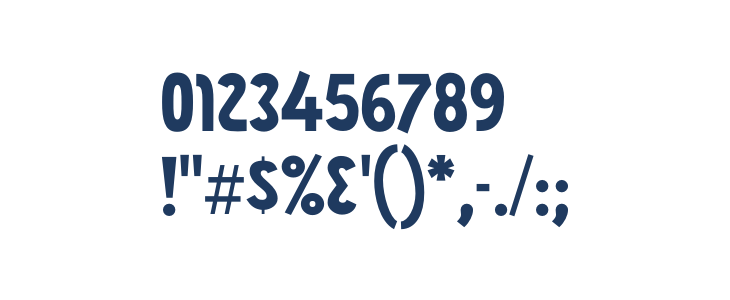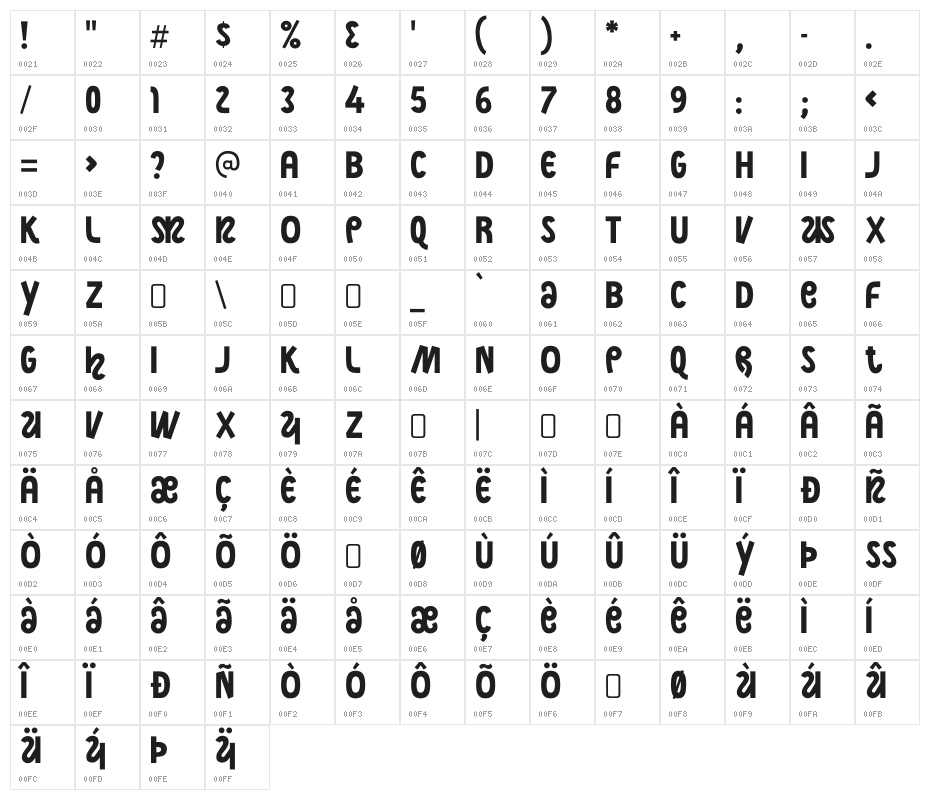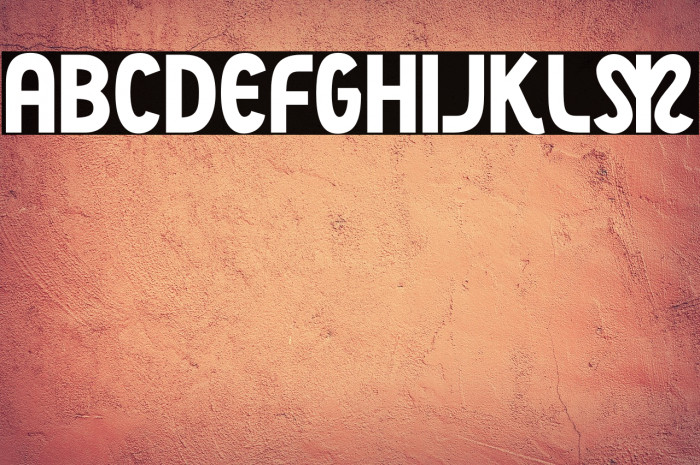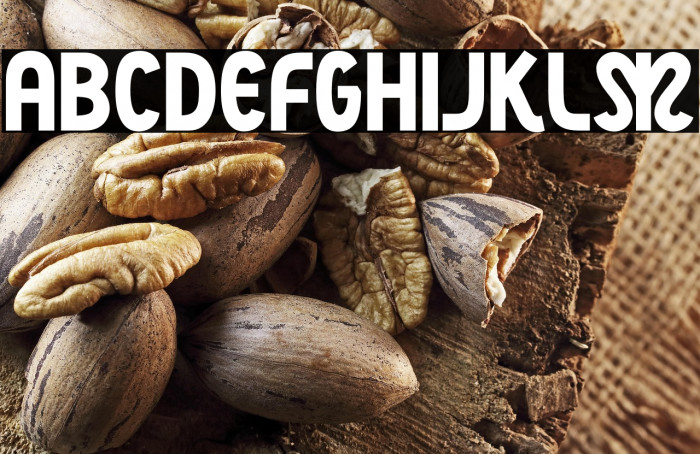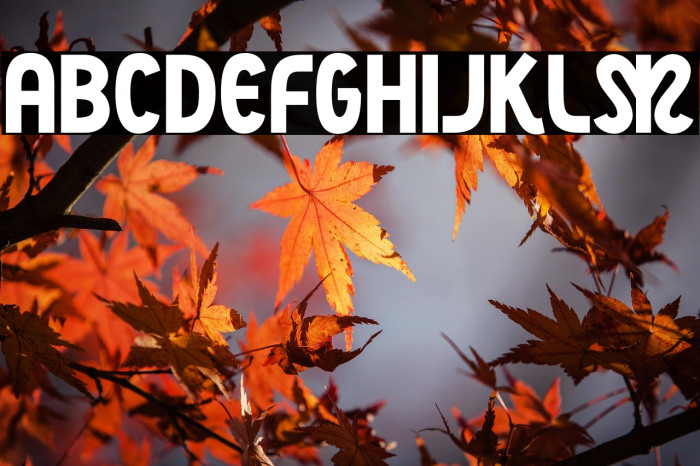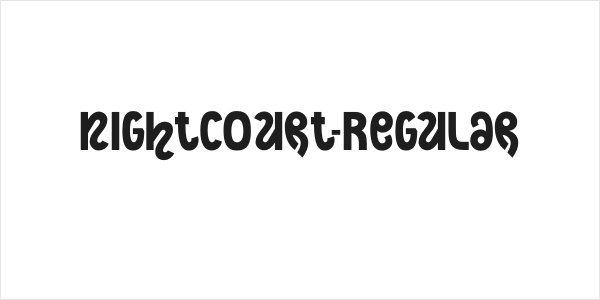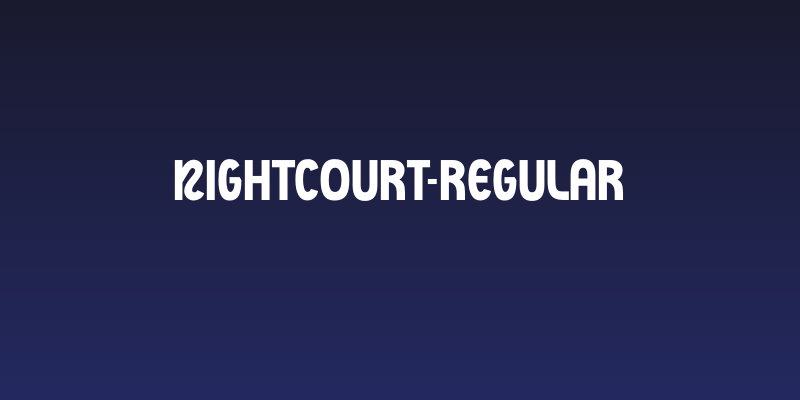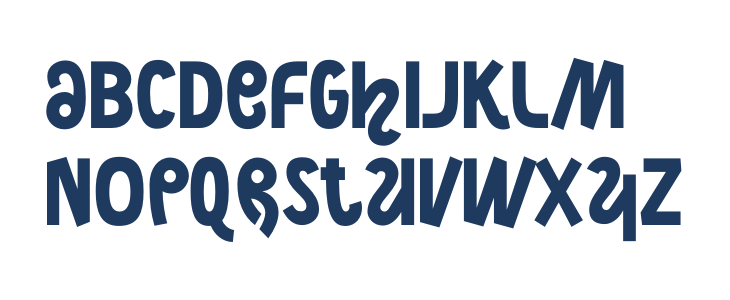
NightCourt-Regular Font
NightCourt-Regular Description
This font features a bold and dynamic style with a modern twist. The characters are designed with a unique curvature and angularity that gives them a distinctive and playful appearance. The uppercase letters are particularly striking, with some characters incorporating unexpected angles and curves that add to the font's overall energetic feel. The lowercase letters maintain this dynamic style, ensuring consistency throughout the typeface. Numbers and special characters are crafted with the same attention to detail, making them stand out while remaining legible. The font's bold weight and strong presence make it ideal for attention-grabbing designs.
| Proposed Projects | Ideal for branding, posters, headlines, and any project that requires a bold and modern aesthetic. |